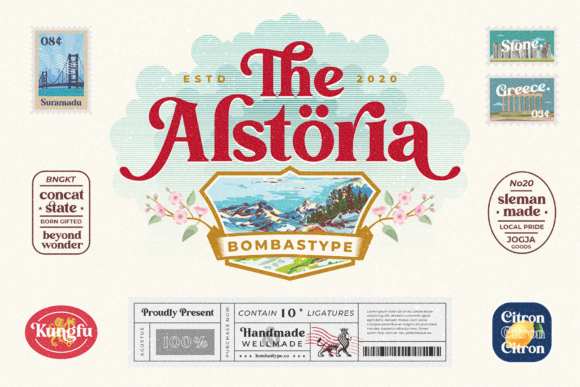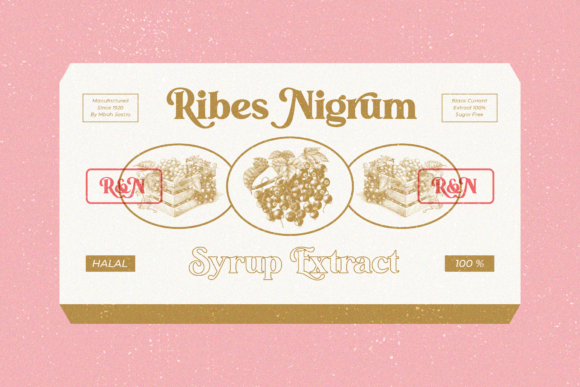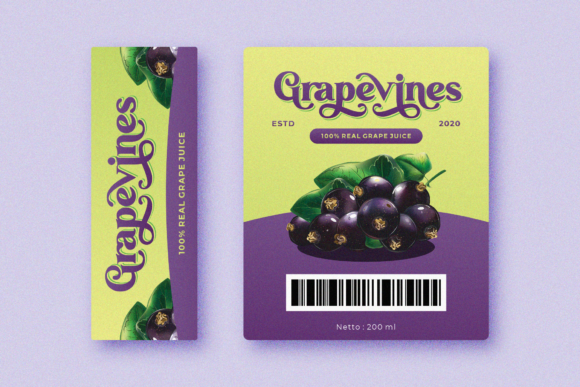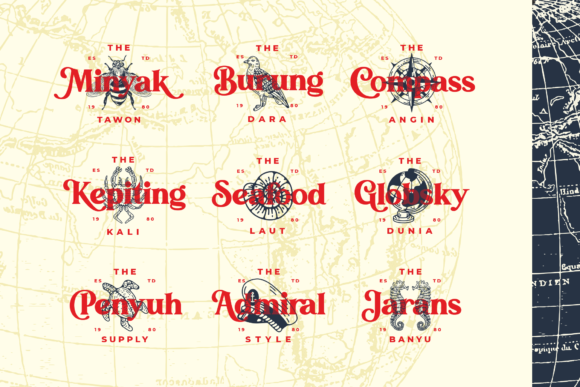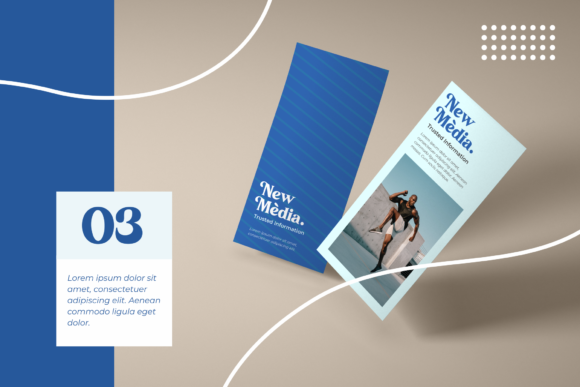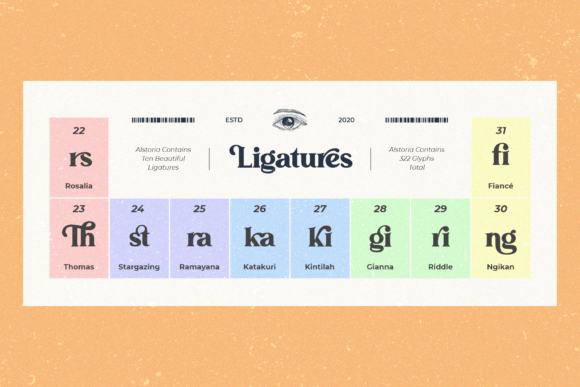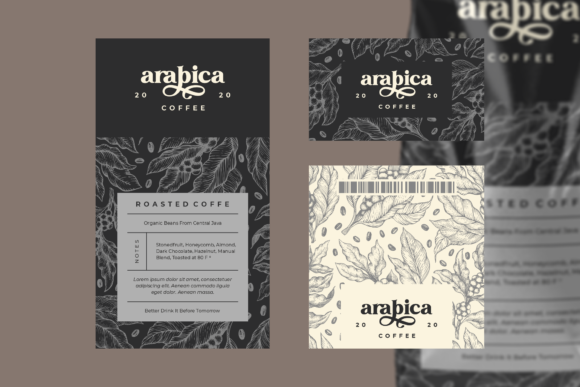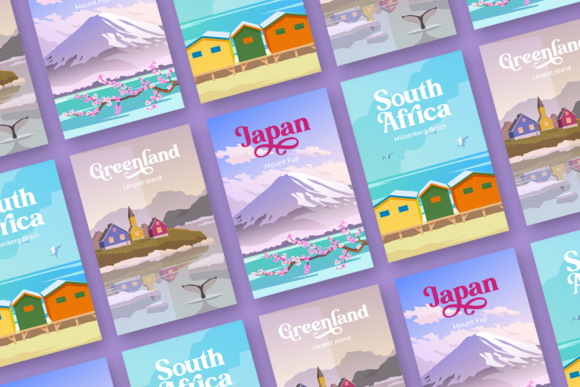
The Alstoria Font
The Alstoria is a bold and beautiful display font. Masterfully designed to become a true favorite, this font has the potential to bring each of your creative ideas to the highest level!